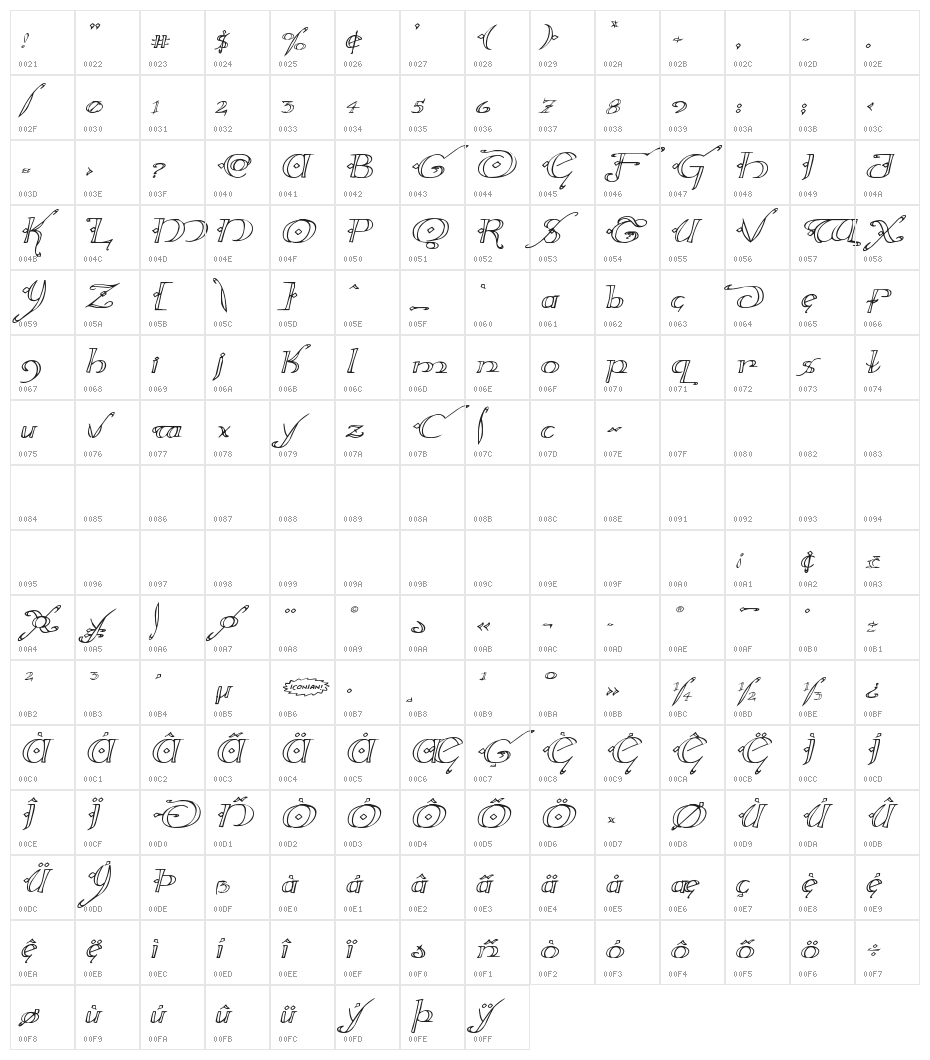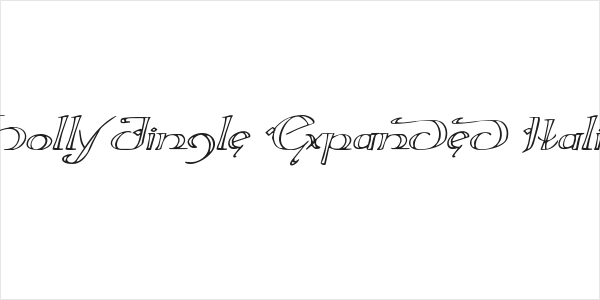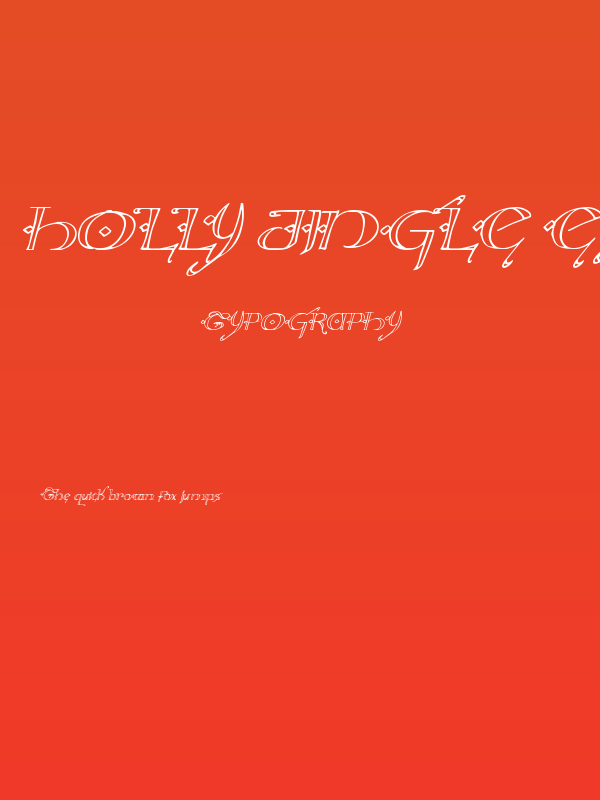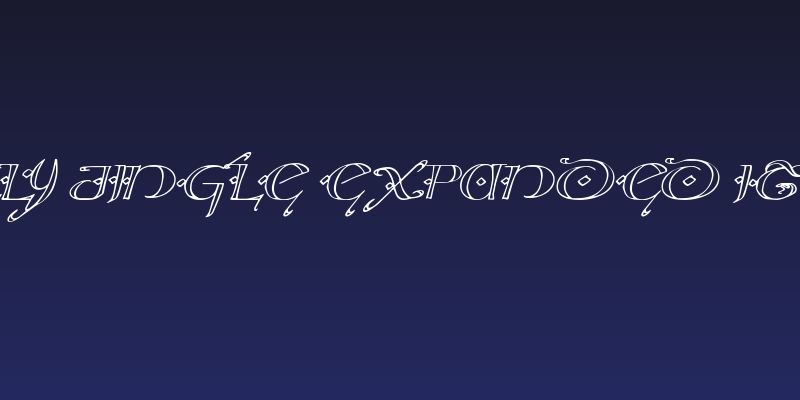
Holly Jingle Expanded Italic Font
Holly Jingle Expanded Italic Description
This font presents a whimsical and festive style, characterized by its decorative and playful elements. The letters are adorned with intricate swirls and loops, giving it a unique and ornate appearance. The italicized form adds a dynamic and flowing quality, enhancing its lively and spirited nature. The expanded width of the characters provides a sense of openness and grandeur, making it suitable for eye-catching designs. The font's high contrast between thick and thin strokes adds to its elegance and sophistication, while the decorative elements evoke a sense of joy and celebration.